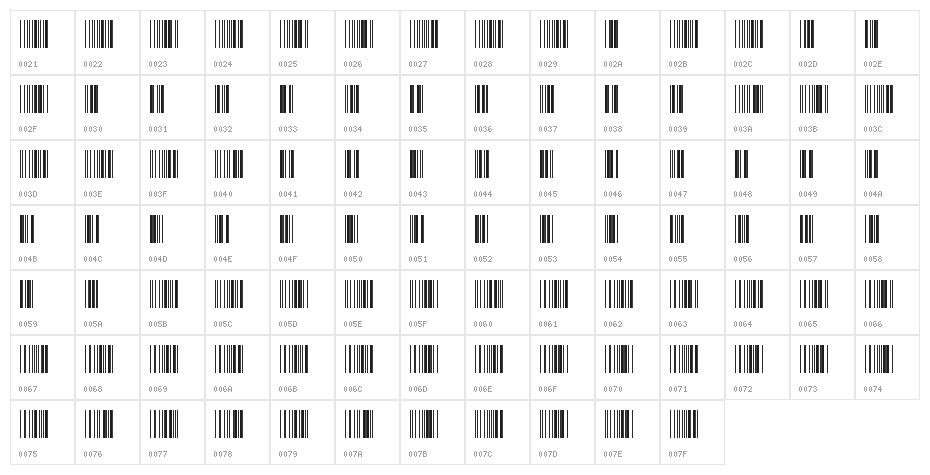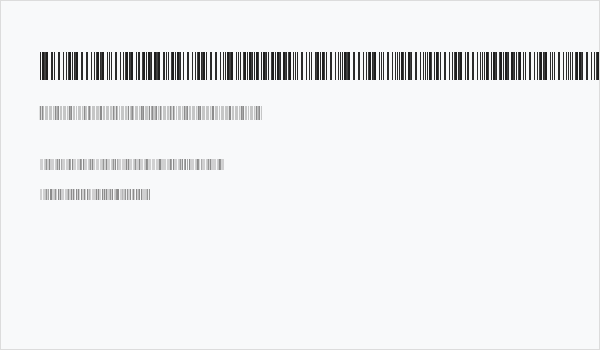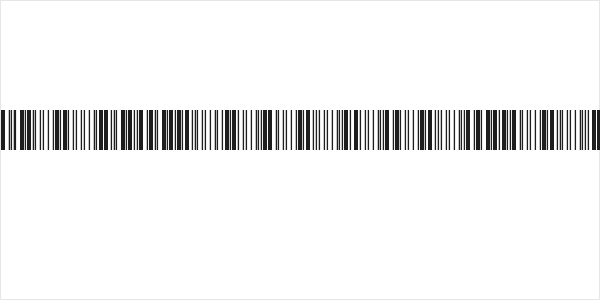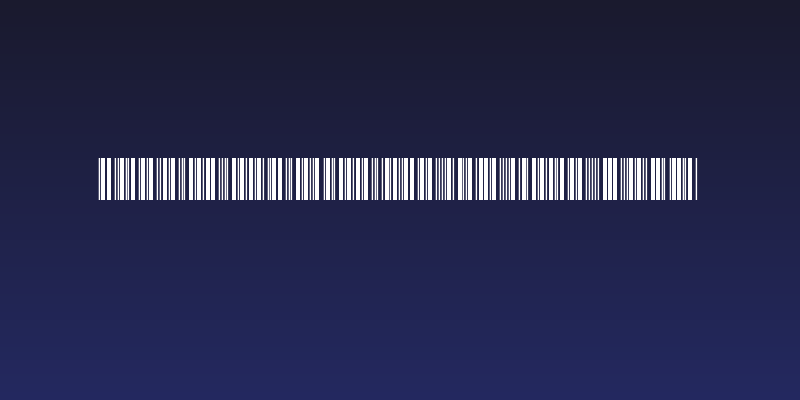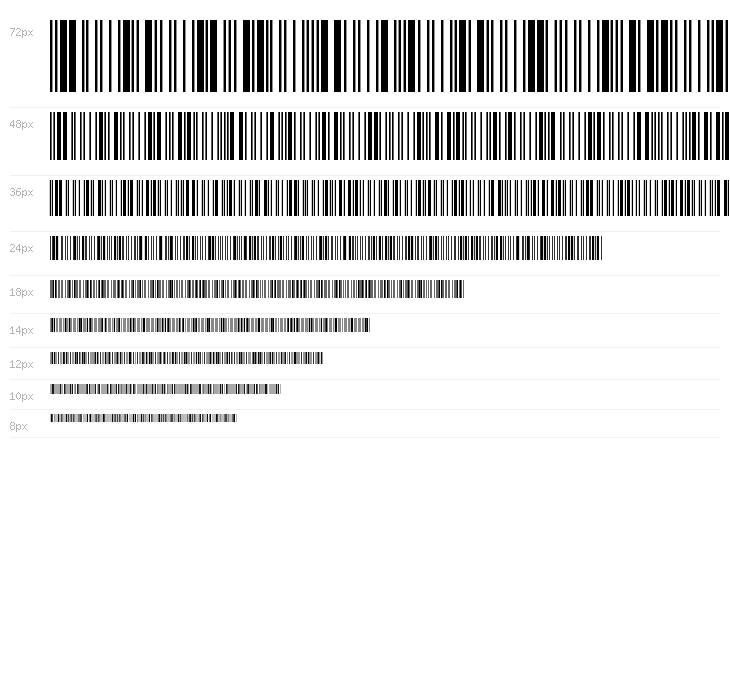
Free 3 of 9 Extended Regular Font
Free 3 of 9 Extended Regular Description
This is a barcode font designed for encoding alphanumeric characters into a machine-readable format. The font consists of a series of parallel lines of varying widths and spaces, representing different characters. It is commonly used in inventory management, retail, and logistics for quick scanning and data entry. The design is utilitarian, focusing on functionality and readability by barcode scanners rather than aesthetic appeal. Each character is represented by a unique pattern of bars and spaces, ensuring accurate data capture.
| Overall Style | Functional |
| Use Case | Barcodes, Inventory systems, Retail labels |
| Proposed Projects | Ideal for inventory management systems, retail product labeling, and logistics tracking applications. |